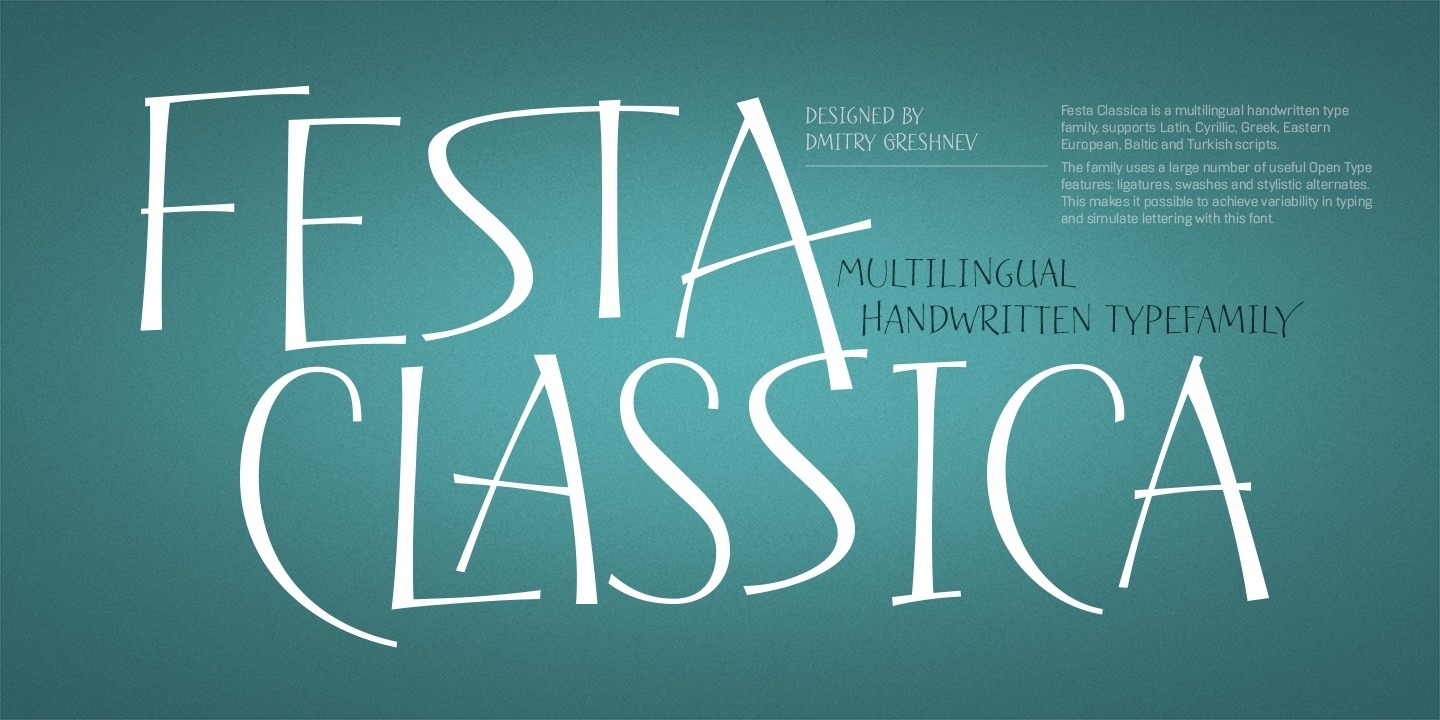
Festa Classica Font
Festa Classica Font is perfect for elegant celebration invitations, classical music venue branding, sophisticated event planning materials, upscale wedding stationery, luxury party decorations, refined restaurant menus, cultural festival marketing, premium hospitality campaigns, and distinguished celebration announcements.
What makes Festa Classica Font exciting is its magnificent embodiment of timeless celebration elegance that transforms ordinary events into memorable occasions through exquisitely crafted letterforms inspired by classical traditions. The font features graceful proportions with sophisticated details that evoke the refined atmosphere of grand celebrations and formal gatherings throughout history. Its carefully balanced character and festive sophistication make it perfect for brands that want to communicate celebration excellence, classical elegance, and the joyous spirit of life's most important moments while maintaining the dignity and prestige associated with formal occasions.
Festa Classica Font family includes various celebratory weights such as Light, Regular, Medium, and Bold variations, often featuring elegant stylistic alternates and classical decorative elements. The family may include festive ligatures, celebration-themed ornaments, and sophisticated symbols that enhance the font's party aesthetic, providing designers with comprehensive options for creating distinguished typographic compositions that honor classical celebration traditions while appealing to contemporary audiences.